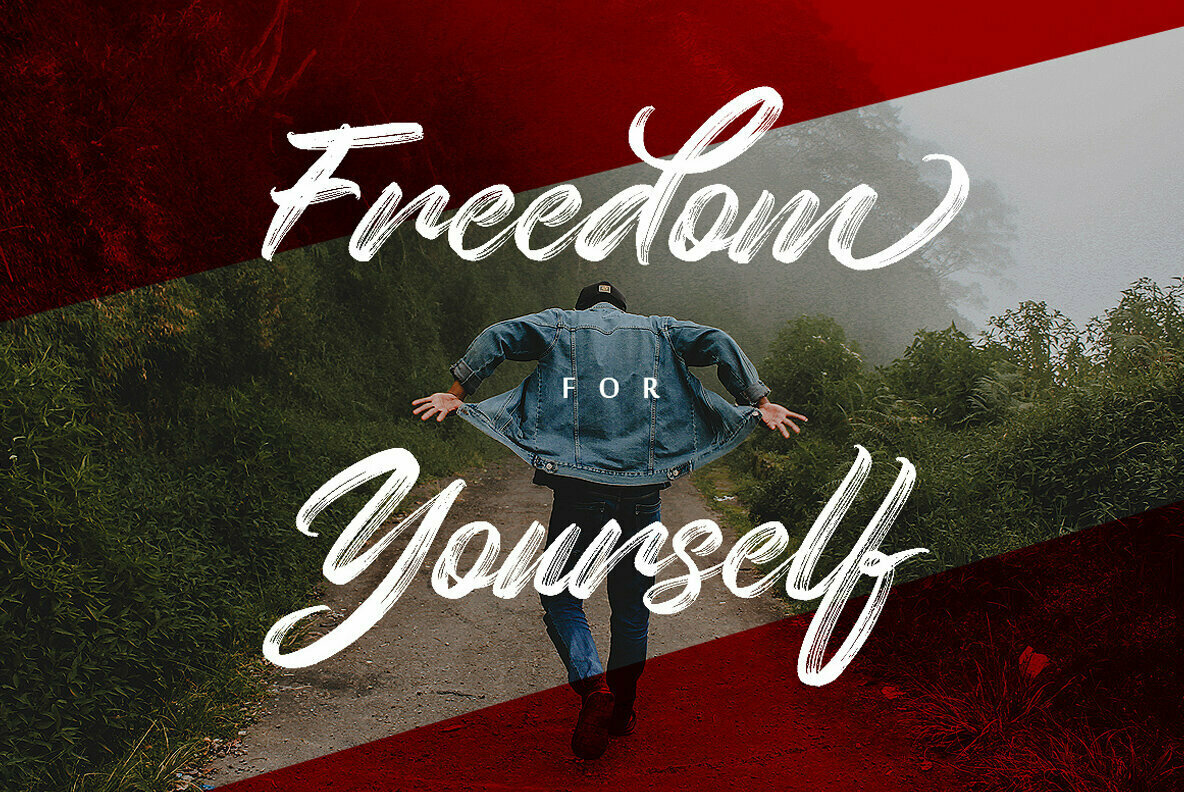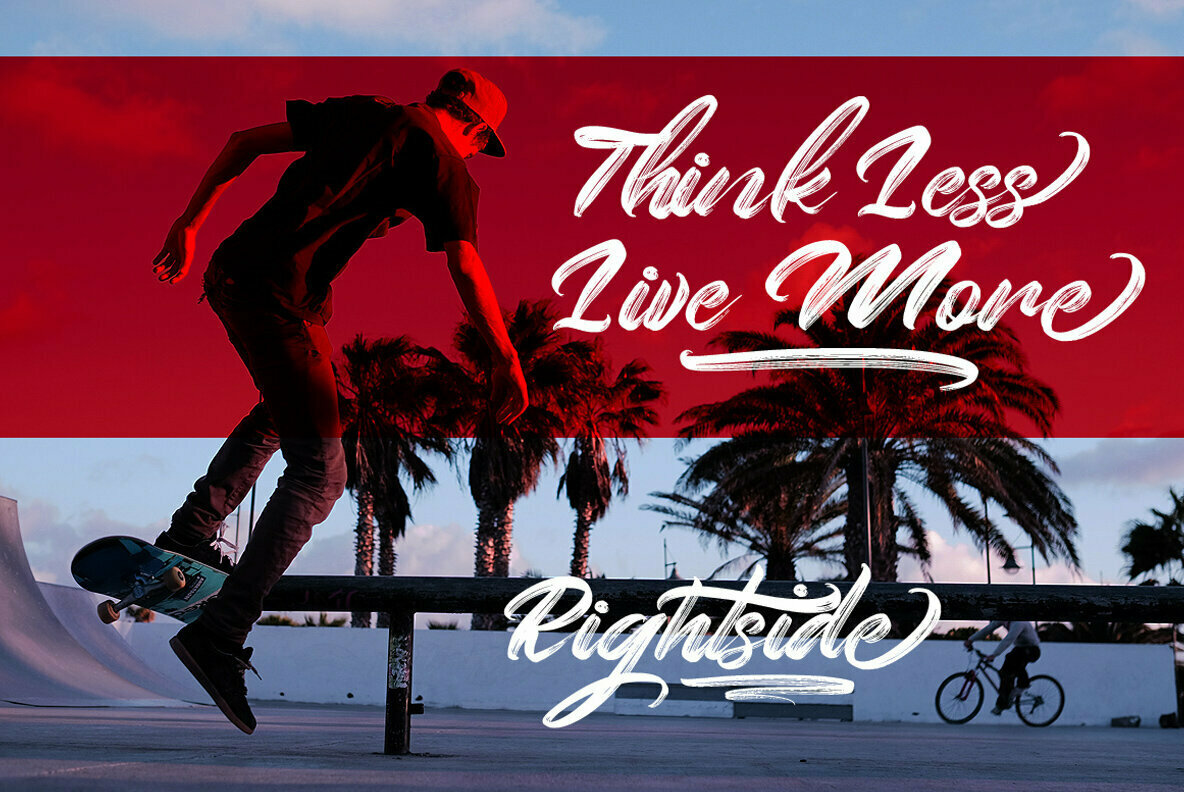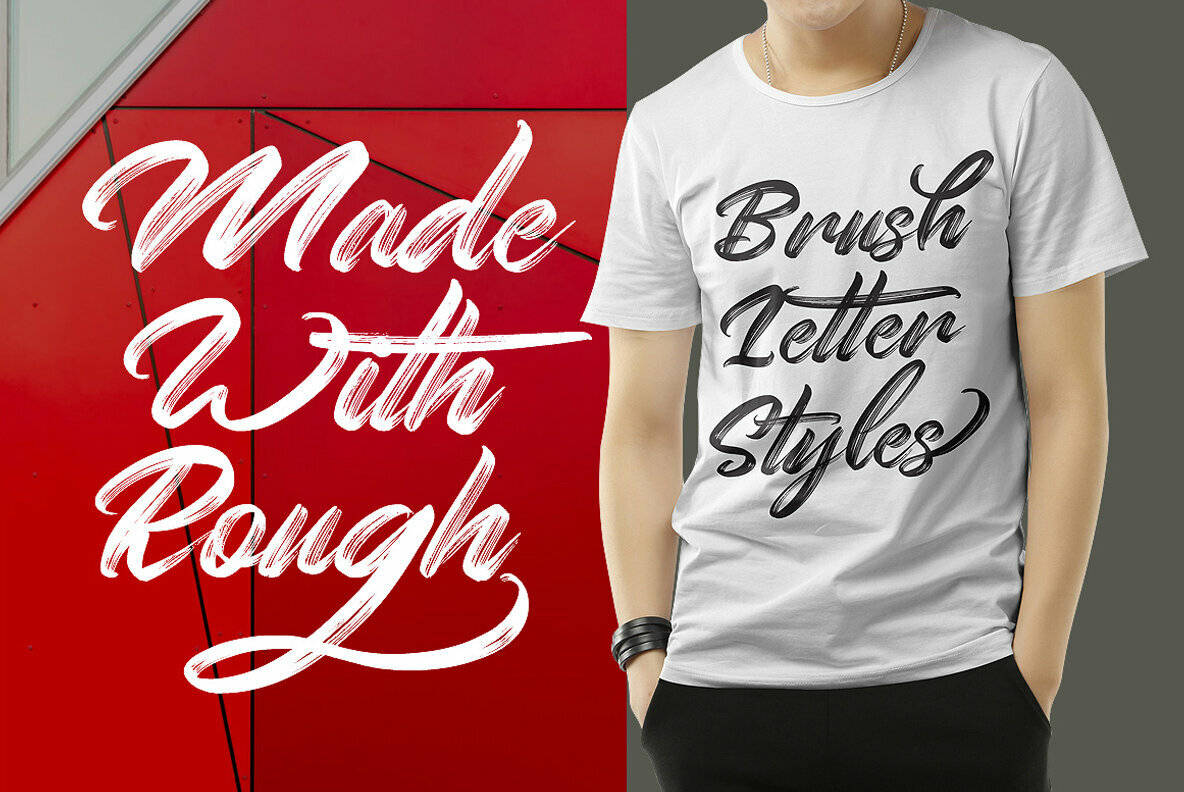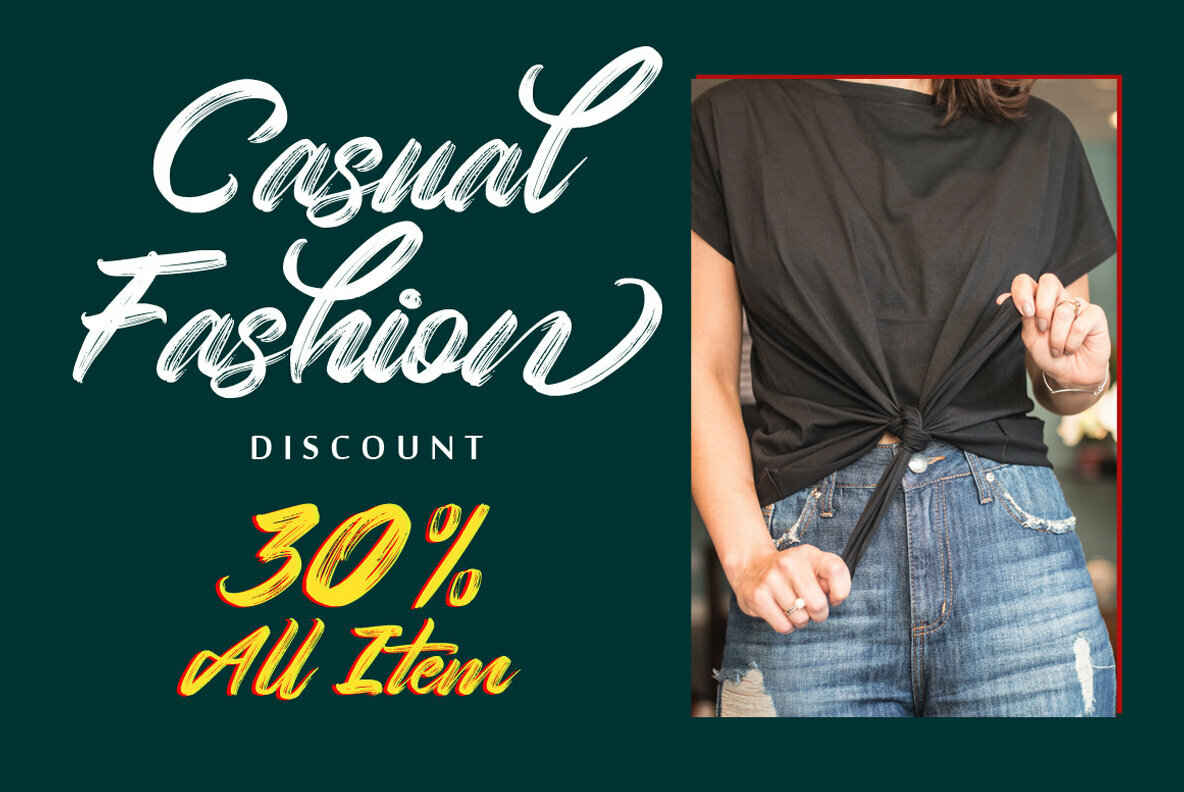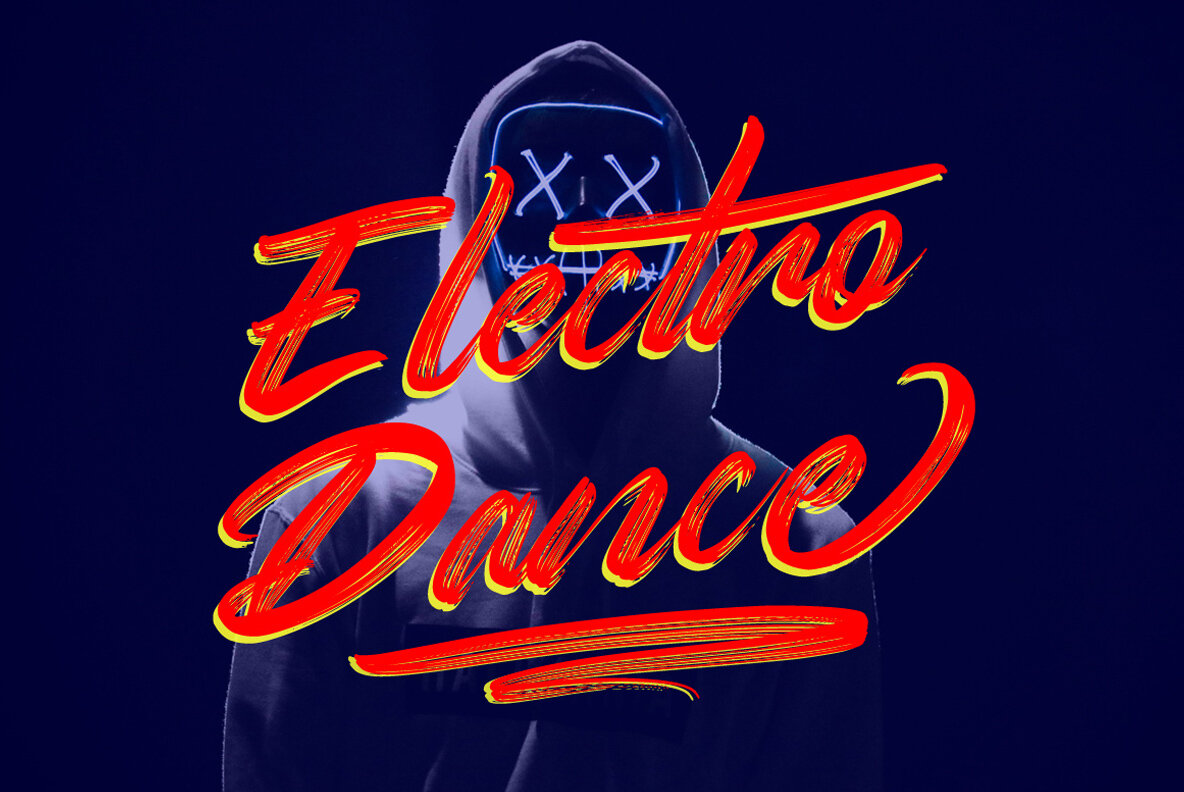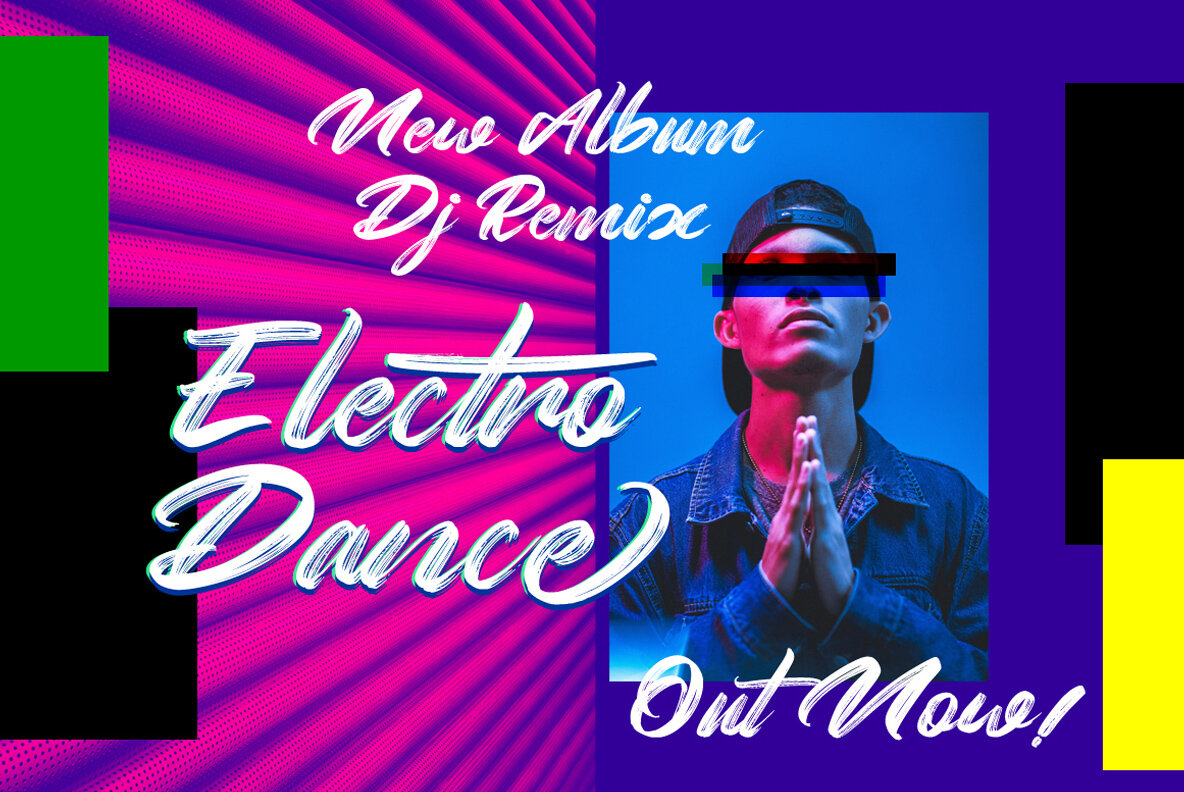
Rightside Font
Rightside
Rightside brings the artistry of handlettering to digital design with its dry brush script style. Its OpenType features enhance creativity by offering versatility in uses such as wedding invitations, logos, and t-shirts. Whether designing badges or stickers, Rightside adds a lively and personal touch.Rightside: A Dynamic Script Font